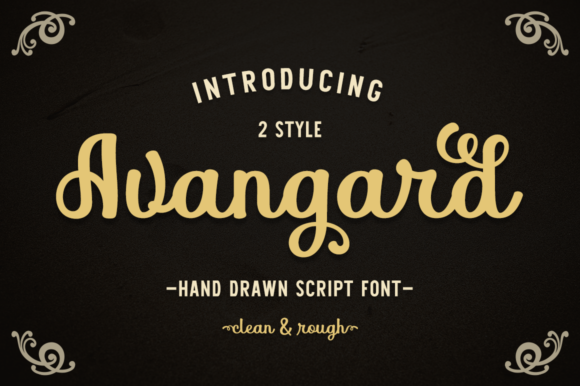
Avangard Font: A Stunning Vintage Font with a Personal Feel
When it comes to typography, there are countless font styles to choose from, each with its own unique character and charm. However, if you’re looking for a font that exudes a retro feel and can add a personal touch to your design projects, then Avangard Font is an excellent choice. In this article, we’ll delve into the world of Avangard Font, exploring its features, benefits, and uses, as well as provide tips on how to make the most of this stunning vintage font.
What is Avangard Font?
Avangard Font is a vintage-inspired font that boasts a distinctive retro feel. Its unique design makes it stand out from other fonts, giving it a personal touch that’s hard to find in modern fonts. With its elegant lines, curves, and geometric shapes, Avangard Font is perfect for designers looking to add a touch of nostalgia to their work.
Key Features of Avangard Font
- Retro Feel: Avangard Font’s vintage-inspired design gives it a unique retro feel that’s perfect for designers looking to create nostalgic designs.
- Personal Touch: The font’s distinctive design elements add a personal touch to any design project, making it stand out from the crowd.
- Elegant Lines and Curves: Avangard Font features elegant lines, curves, and geometric shapes that give it a sophisticated look.
- Versatile: The font is versatile and can be used for a wide range of design projects, from branding and advertising to packaging and editorial design.
Benefits of Using Avangard Font
There are many benefits to using Avangard Font in your design projects. Here are just a few:
Why Choose Avangard Font?
- Adds a Touch of Nostalgia: Avangard Font’s retro feel can add a touch of nostalgia to your designs, making them more memorable and engaging.
- Standout Designs: The font’s unique design elements make it easy to create standout designs that grab attention.
- Easy to Read: Despite its vintage feel, Avangard Font is easy to read, making it perfect for body text and headlines.
- Customizable: The font is highly customizable, allowing you to adjust its size, color, and style to fit your design needs.
Using Avangard Font in Your Design Projects
Avangard Font is a versatile font that can be used in a wide range of design projects. Here are a few ideas to get you started:
Design Project Ideas
- Branding and Advertising: Use Avangard Font to create eye-catching logos, posters, and advertisements that grab attention.
- Packaging Design: Add a touch of nostalgia to your packaging designs with Avangard Font, making your products stand out on store shelves.
- Editorial Design: Use Avangard Font to create engaging editorial designs, such as magazines, newspapers, and books.
- Web Design: Add a personal touch to your website with Avangard Font, making it more memorable and engaging for visitors.
Tips for Using Avangard Font
Here are a few tips to keep in mind when using Avangard Font in your design projects:
Getting the Most out of Avangard Font
- Use it Sparingly: While Avangard Font is a beautiful font, it can be overwhelming if used excessively. Use it sparingly to create emphasis and add visual interest.
- Experiment with Colors: Avangard Font looks great in a variety of colors, so don’t be afraid to experiment and find the perfect hue for your design.
- Pair it with Other Fonts: Avangard Font pairs well with other fonts, so try combining it with a modern sans-serif font for added contrast.
- Adjust the Size: Avangard Font can be used at a variety of sizes, so experiment with different sizes to find the perfect fit for your design.
Avangard Font is a stunning vintage font with a personal feel that’s perfect for designers looking to add a touch of nostalgia to their work. With its elegant lines, curves, and geometric shapes, Avangard Font is versatile and can be used for a wide range of design projects. By following the tips outlined in this article, you can get the most out of Avangard Font and create standout designs that grab attention.
Get Inspired with Avangard Font